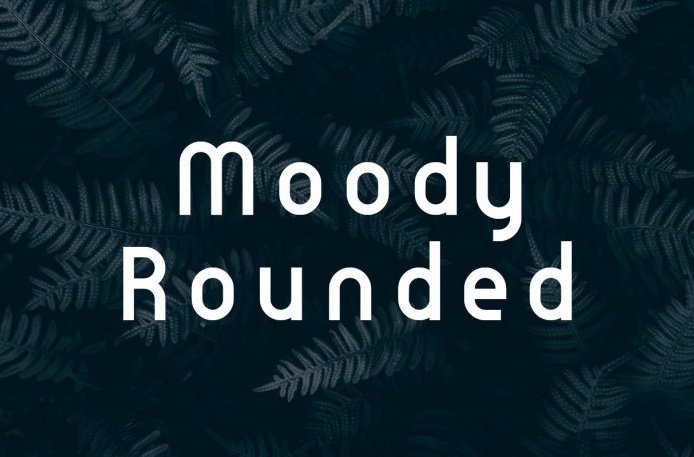
Moody Rounded Font
This font is a geometric sans serif. A slightly curvy silhouette adds charm and character to a otherwise minimalistic and modern appearance. Perfect for creating elegant logos, stylish branding designs, social media images, editorial design, and much more.